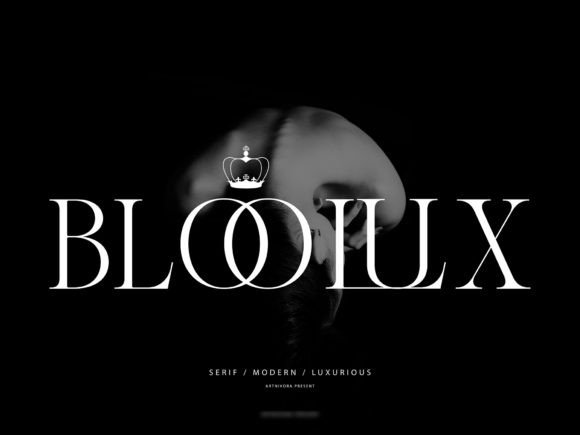
Behold Bloolux, a Serif font family that exudes elegance and sophistication, destined to elevate your creative endeavors. Meticulously crafted by the skilled hands of artnivora.std, this typographic masterpiece is the perfect companion for modern websites, yearning for a touch of distinction.
Enter a world of visual allure, where Bloolux's delicate serifs dance across the digital canvas, captivating the eyes of your audience. Its timeless beauty transcends trends, ensuring your designs remain relevant and captivating for years to come.
Unleash your imagination and let Bloolux guide you through a symphony of creative possibilities. Whether you're designing logos, crafting magazine layouts, captivating social media posts, or composing brochures, Bloolux seamlessly adapts, enhancing your message with an air of sophistication.
Experience the seamless fusion of form and function as Bloolux effortlessly enhances readability, ensuring your words flow with grace and clarity. Its carefully balanced letterforms and generous kerning create an inviting reading experience, drawing your audience deeper into your content.
In a world saturated with visual noise, Bloolux emerges as a beacon of simplicity and refinement. Its understated elegance cuts through the clutter, allowing your message to shine through with unparalleled clarity and impact.